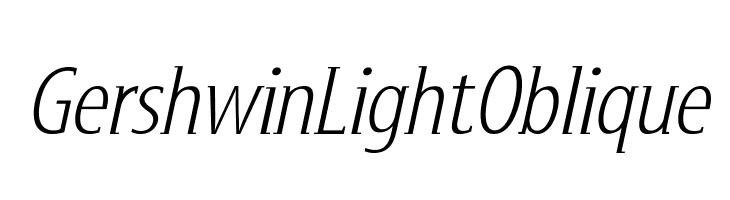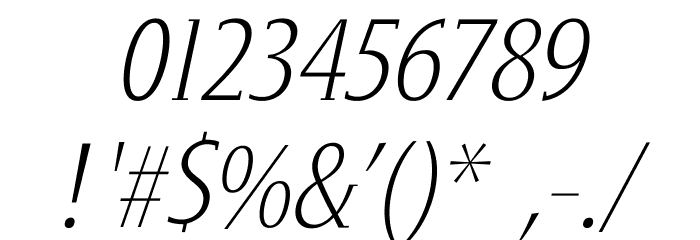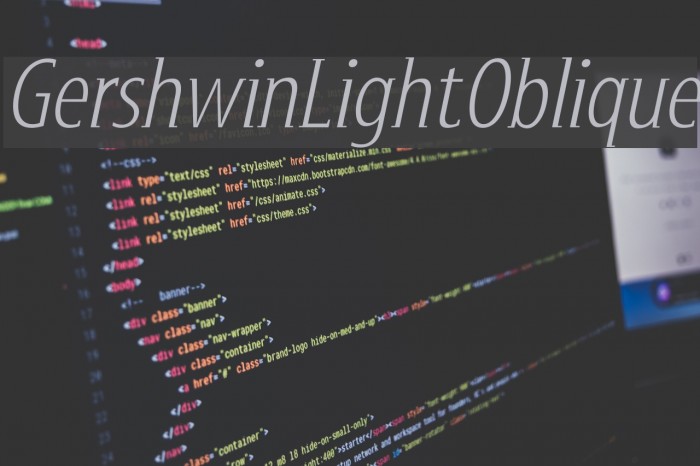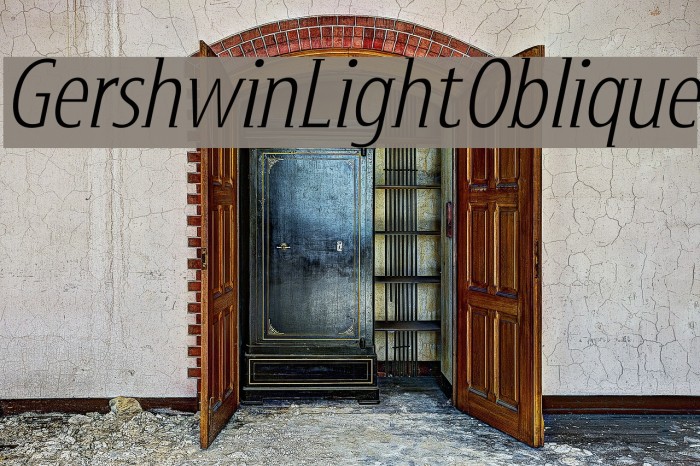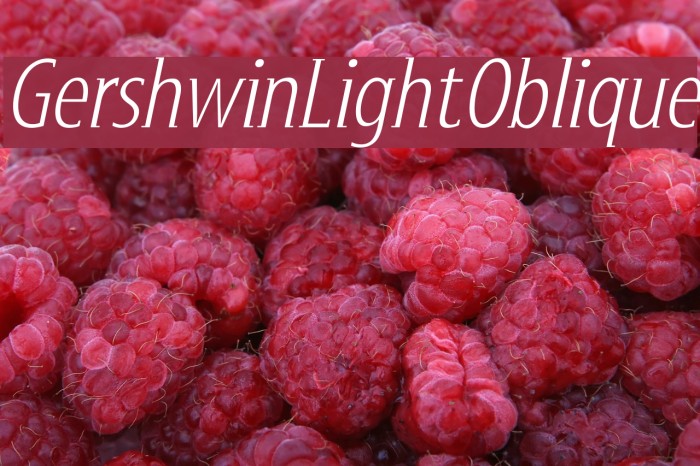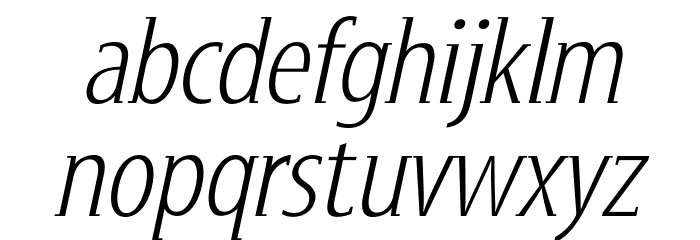
GershwinLightOblique Font
GershwinLightOblique Description
This font features an elegant and sophisticated design with a slight oblique slant, giving it a dynamic and modern appearance. The characters are crafted with a light weight, providing a delicate and airy feel. The strokes are smooth and consistent, with a medium contrast that enhances readability while maintaining a stylish look. The font's overall style is refined and versatile, making it suitable for a variety of applications. Its clean lines and subtle curves lend it a timeless quality that can complement both contemporary and classic designs.
| Use Case | Headlines, Body text, Logos |
| Proposed Projects | Ideal for use in fashion magazines, elegant branding, wedding invitations, and upscale product packaging. |